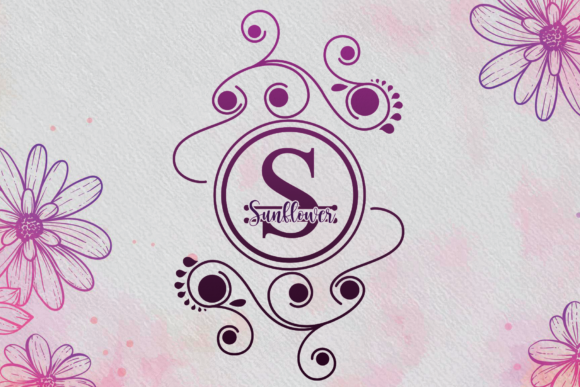
Immerse yourself in the world of Superior, a font that embodies elegance and sophistication. This decorative font, meticulously crafted by Monogram, S.KOM, is a testament to the beauty of intricate details and delicate lines. Whether you're a seasoned designer or simply seeking to add a touch of artistry to your projects, Superior is the perfect choice for you.
With its sweeping curves and captivating flourishes, Superior will transform your designs into masterpieces. Imagine your wedding invitations adorned with Superior's graceful script, exuding an aura of romance and timeless charm. Or envision your flyers and posters adorned with Superior's intricate patterns, capturing attention and leaving a lasting impression.
Superior's versatility extends beyond traditional design applications. Unleash your creativity and explore its potential in digital art, branding, and social media graphics. The possibilities are endless, as Superior seamlessly adapts to various styles and themes.
Embrace the allure of Superior and elevate your designs to new heights. Its intricate details will captivate your audience, leaving them spellbound by the sheer artistry of your creations. Whether you're a seasoned professional or just starting your design journey, Superior will be your trusted companion, transforming your ideas into works of art.
Unlock the endless possibilities of Superior today and witness the transformation of your designs.